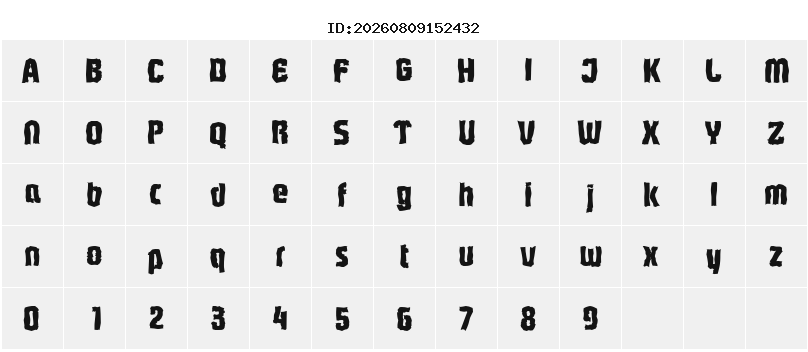
• Font Name: PasadenaRandom-Xbold
• Designer: SoftMaker Software GmbH
About PasadenaRandom-Xbold.ttf
PasadenaRandom-Xbold.ttf is a modern, elegant sans-serif font designed for ultimate readability and visual harmony. Perfect for branding, headlines, web design, and print materials.